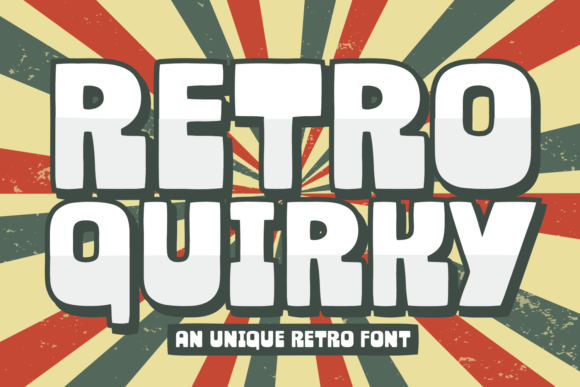
Prepare yourself to be captivated by Retro Quirky, a uniquely bold display font family that oozes a retro charm. Its thick, chunky characters dance across your screen, demanding attention and infusing your designs with a dash of whimsy.
Retro Quirky is more than just a font; it's a journey through time, transporting you to an era of nostalgia and playfulness. Picture this: your designs adorned with the delightful curves and quirky shapes of Retro Quirky, evoking a sense of childlike wonder.
With Retro Quirky, your posters and apparel will leap off the page, beckoning onlookers with their vibrant energy. Kids' t-shirts will burst with joy as the playful characters dance across their chests. Invitations and advertisements will radiate an infectious charm, promising a delightful experience to all who encounter them.
This versatile font family lends its magic to an array of creative endeavors. Craft captivating headlines, titles, and signage that command attention and leave a lasting impression. Allow Retro Quirky to transform your designs into true works of art, admired by all who lay their eyes upon them.
The Retro Quirky font family is meticulously crafted, ensuring smooth readability and effortless implementation. Its PUA encoding grants you easy access to an array of glyphs, empowering you to unleash your creativity without boundaries.
Join the Retro Quirky revolution and unlock a world of captivating designs. Let your imagination soar as you create projects that exude charm, individuality, and a touch of nostalgic delight. Retro Quirky isn't just a font; it's an experience that will elevate your designs to new heights.